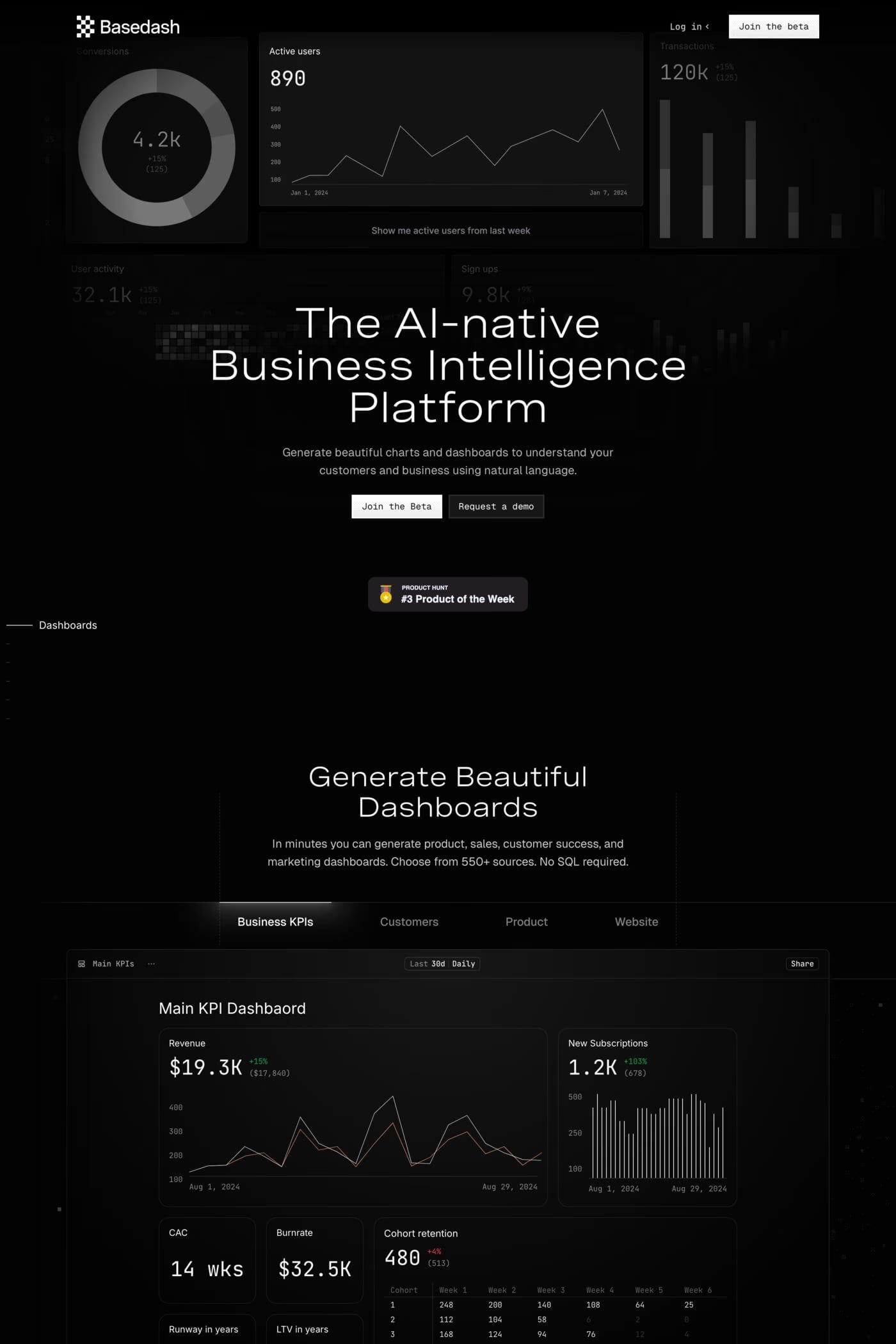
Spezia is a sans-serif typeface from Luzi Type.
Explore Spezia, a versatile variable font from a super family, designed for responsive layouts with flexibility and style. Rooted in the neo-grotesque genre, it offers a harmonious balance, simple monoline structure, and consistent character widths.